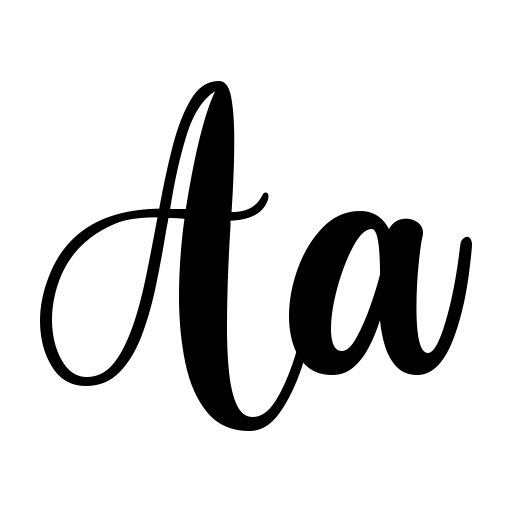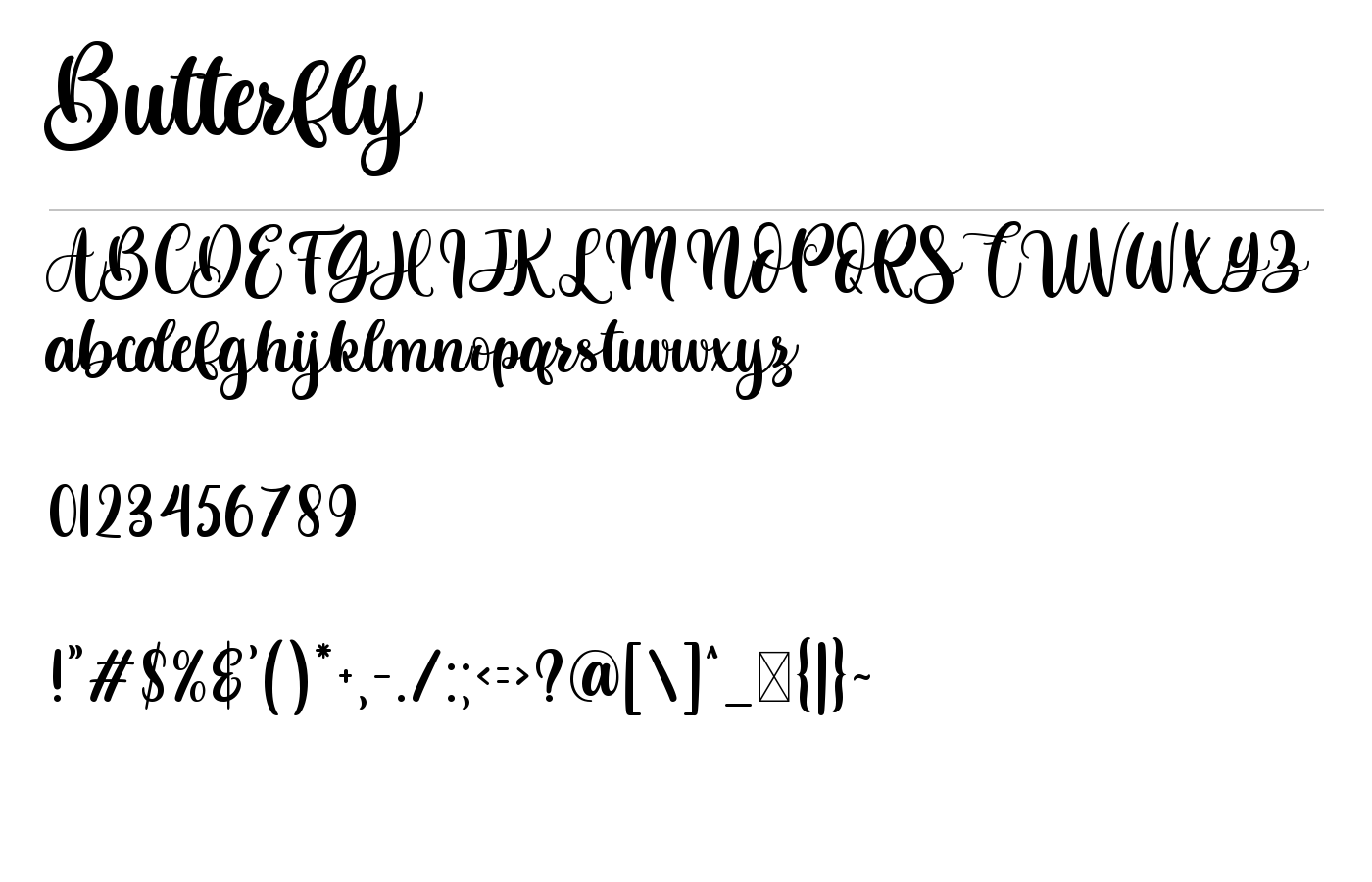
Butterfly Font is a graceful script typeface characterized by its elegant, flowing strokes and playful swashes, creating a lively and sophisticated feel. With its medium weight, high contrast, and smooth, rounded letterforms, it suits branding, invitations, and creative projects that need a stylish yet approachable touch. This font works especially well for logos and headlines where a charming, hand-lettered look is desired.
Butterfly Font
About Butterfly Font
| Font family | Butterfly Font |